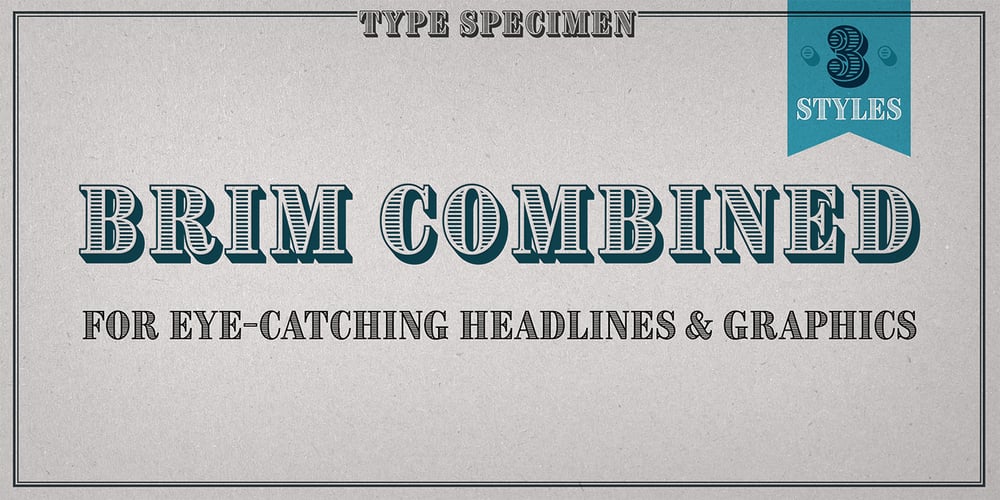
Brim Combined
Brim Combined font
Brim Combined Font Family was designed by Jamie Clarke and published by Jamie Clarke Type. Brim Combined contains 3 styles and family package options. Brim Combined packs all of the character of the popular layered typeface, Brim Narrow, into three eye-catching font styles. Inspired by antique wood type from the 1800s, Brim is warm and tactile. Its innovative styles produce both striking headlines and sophisticated titles, making it perfect for posters, packaging and logotypes. Brim Combined makes it even easier to achieve punchy headlines on the web. This flattened version of Brim does not require professional design software to use and is compatible with Microsoft Word. • Combined 1 features Brim’s elegant, handmade line work • Combined 2 includes a drop shade with an outline • Combined 3 has an offset shade and a reversed-out face Brim is an all-caps typeface with Western European, Central European and South Eastern European language support.